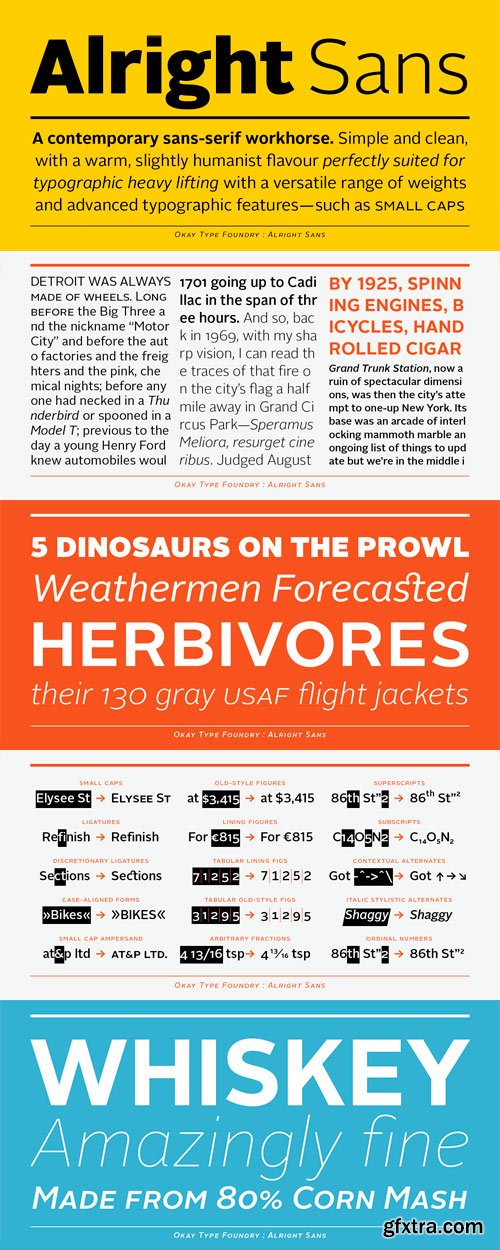
Alright Sans Font Family
- Alright Sans is a contemporary sans-serif. Inspired by both grotesque and humanist models, it’s clean and prudent with a warm, friendly tone. Alright Sans is a modest design that doesn't feel at all stiff or bland. It has open apertures and roundabout economy that works exceptionally well across media and at reduced sizes. And with shorter-than-normal capitals and a tall x-height, it’s functional without becoming distracting, goofy, or unprofessional. Extra care was taken in creating the OpenType features in Alright Sans. Details were included to help make high-quality typesetting easier, such as case-sensitive punctuation and an optically-correct superscript. A stylistic set in the italics provides alternate two-story forms of the ‘a’ and ‘g’. Even the default numbers are the proportional width old-style forms for a more refined all-around text appearance. There are also lining figures for setting with caps and tabular-width versions for setting tables. Every style of Alright Sans also has a full set of built-in small caps, even the italics. There is also an expanded character set, supporting over a hundred languages. And with weights ranging from extra thin to ultra heavy, Alright Sans proves itself to be a versatile and useful family for a wide range of projects.